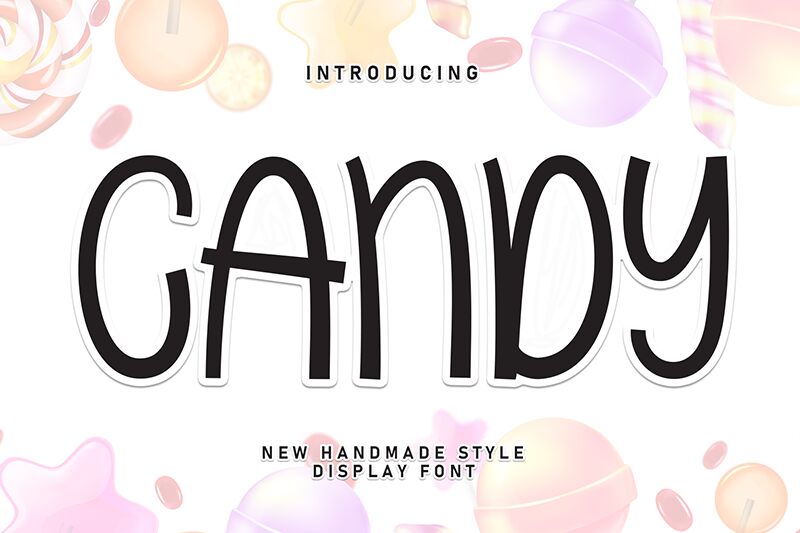
Candy font by Andi Moz is a crafted handwritten typeface that captures attention with its casual and dynamic aesthetic. This free font features a design that’s inspired by rounded, flowing shapes with characters that are exceptionally lively and captivating. The soft, whimsical charm of Candy seeks a personal connection with each audience, making them feel more familiar, thus offering the perfect approach for friendly and comforting projects.
Candy's informal contemporary style brings a youthful vibe to branding projects, business cards, labels, or packaging designs. Its rounded shapes are approachable with an inviting design, and its simple yet striking characters allow designers to wonderfully mix it with other modern and light designs. The script font can also be used for artwork, decorating notebooks, cards, posters, typography artwork, and other print, digital, or online projects.
This is a sweet and friendly handwritten display font. Cute and fun, this free font is ideal for creating wedding invitations, cards, or any design that could use a playful touch!